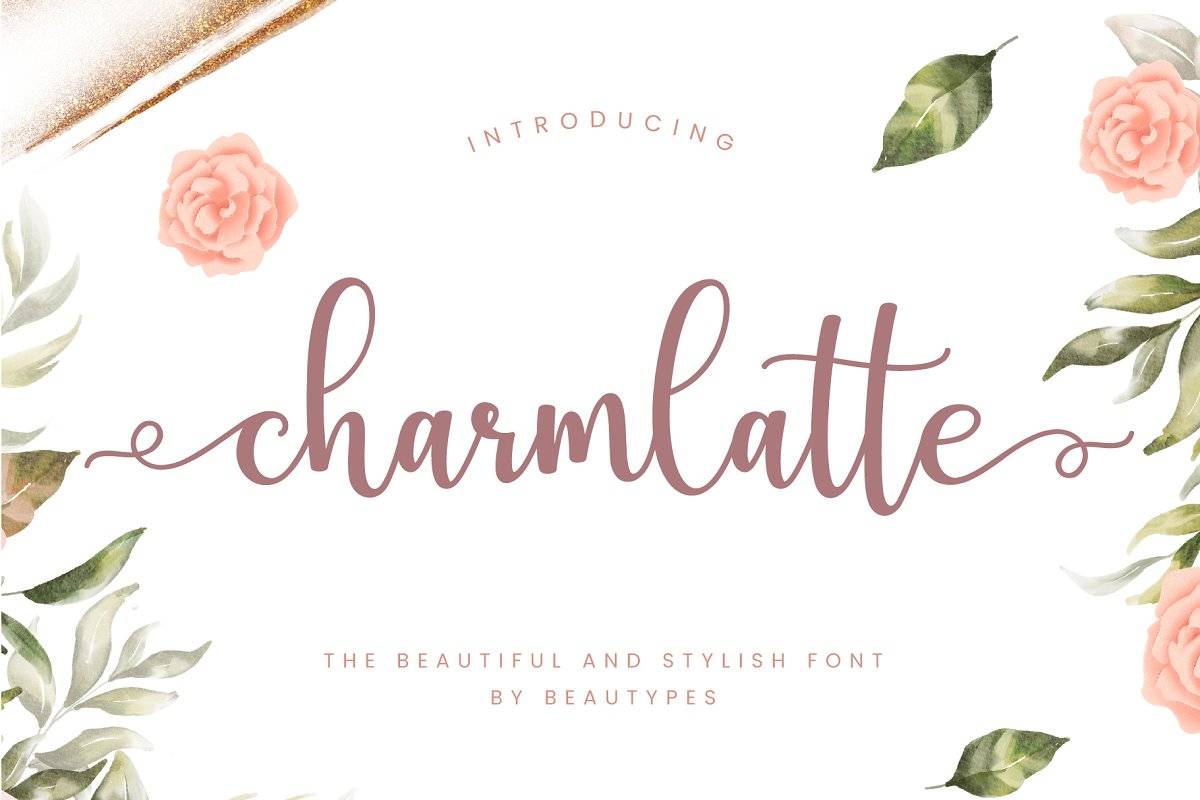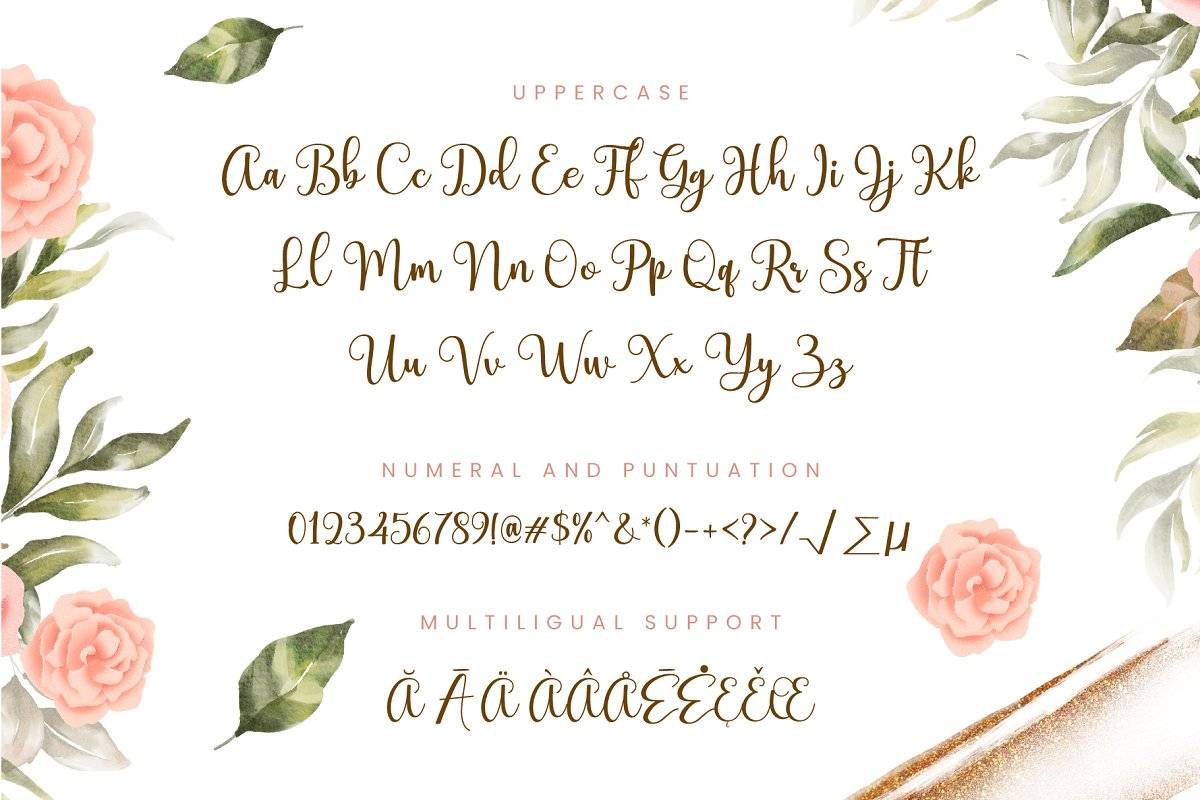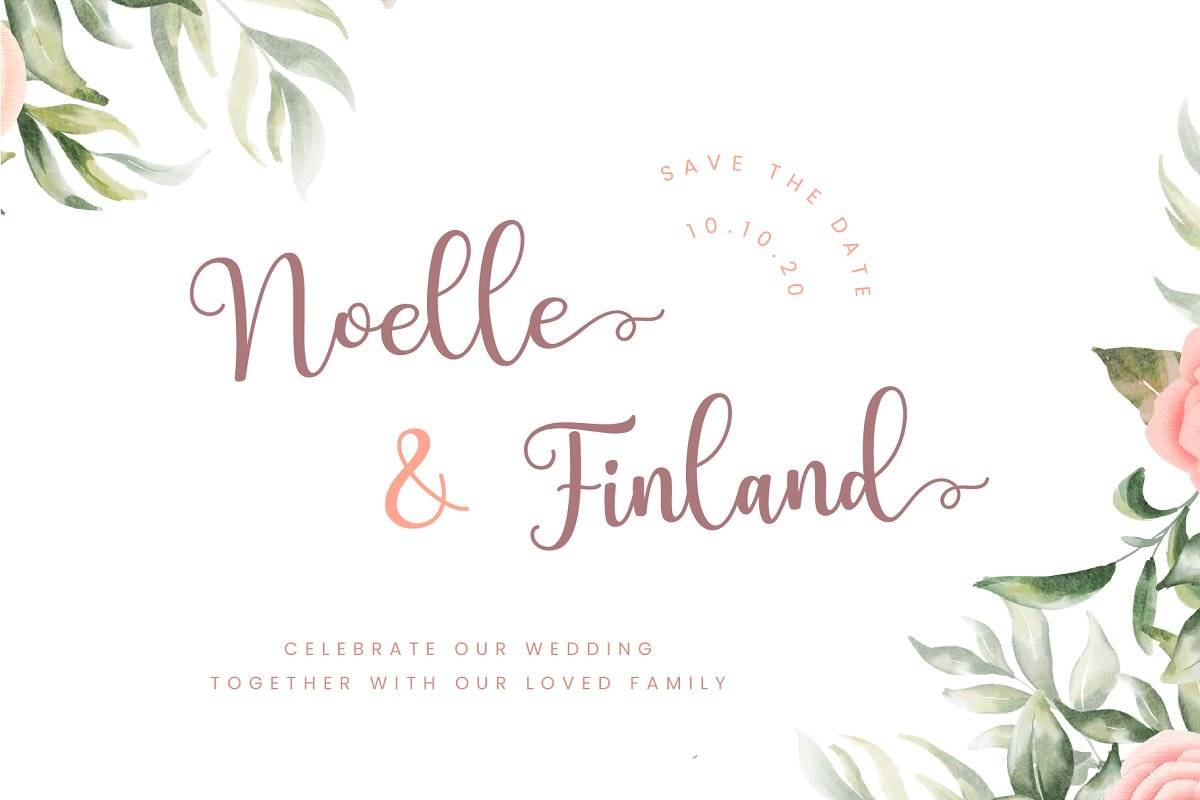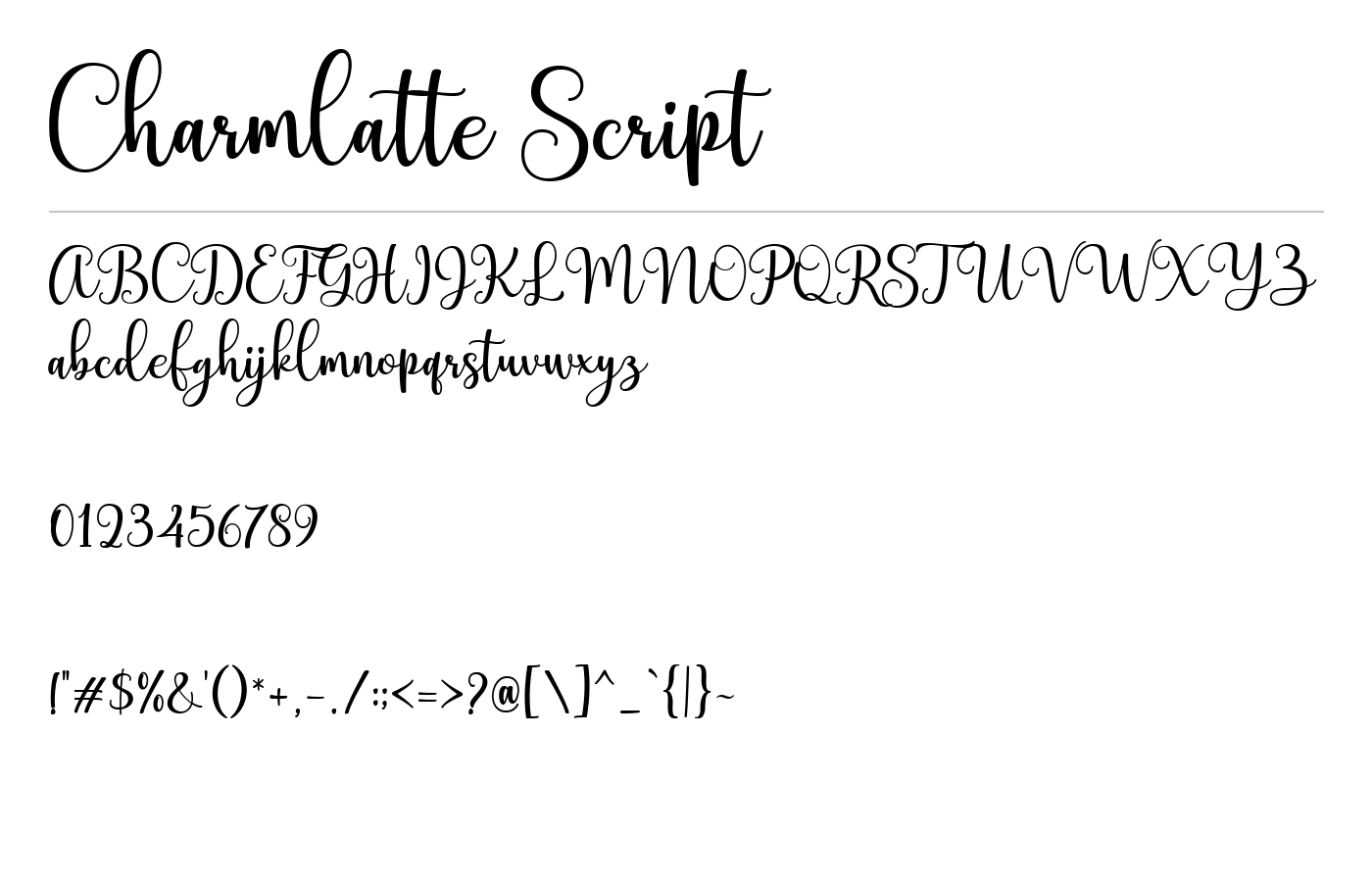
Charmlatte is an elegant script font with flowing, handcrafted letterforms that combine a casual charm with refined sophistication. Featuring smooth, varied strokes and delicate swashes, it adds a touch of warmth and personality, making it perfect for invitations, branding, and stylish editorial use where a graceful yet approachable feel is desired.
| Font family | Charmlatte Font |
| Release date | 2020-11-09 |
| Designer | Beautypes |